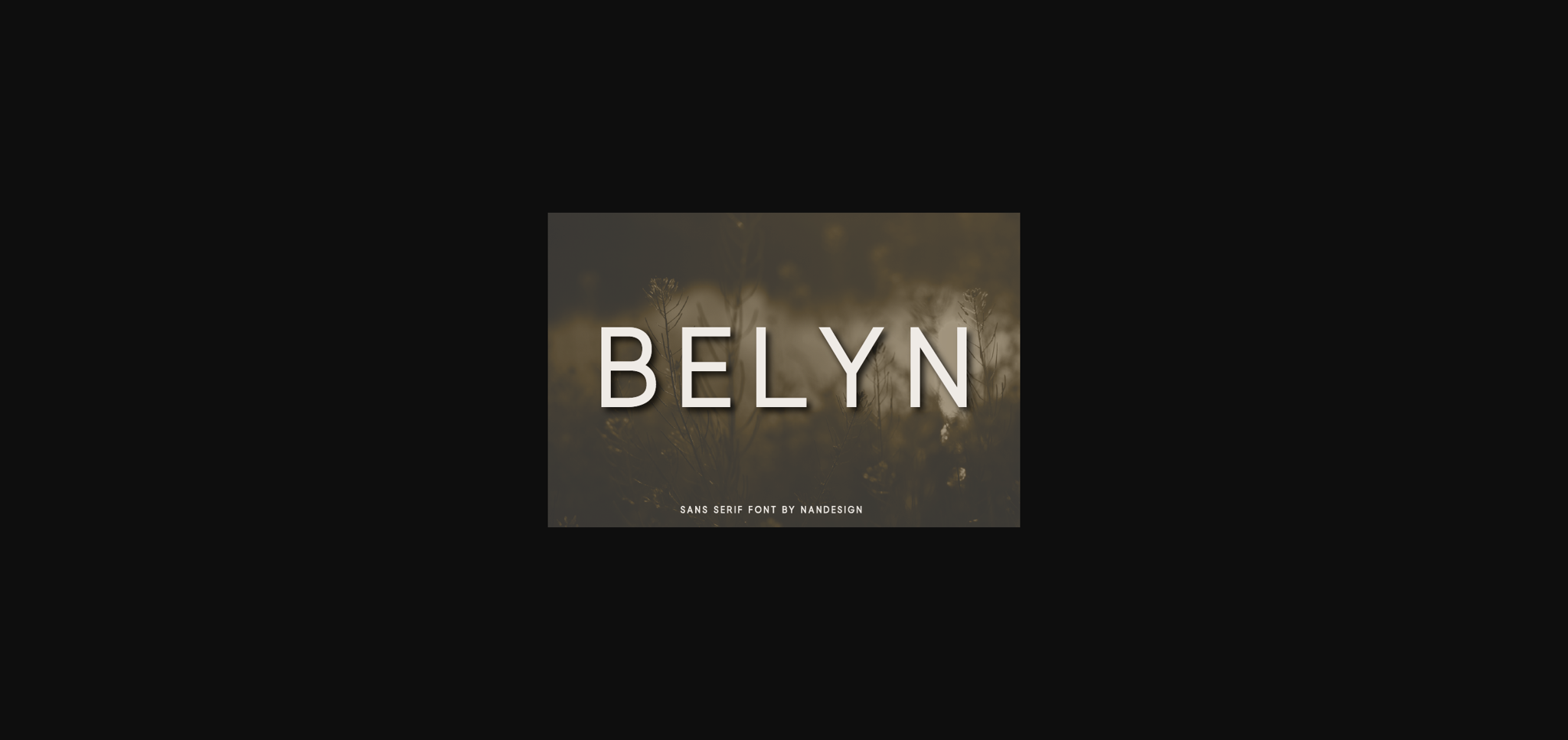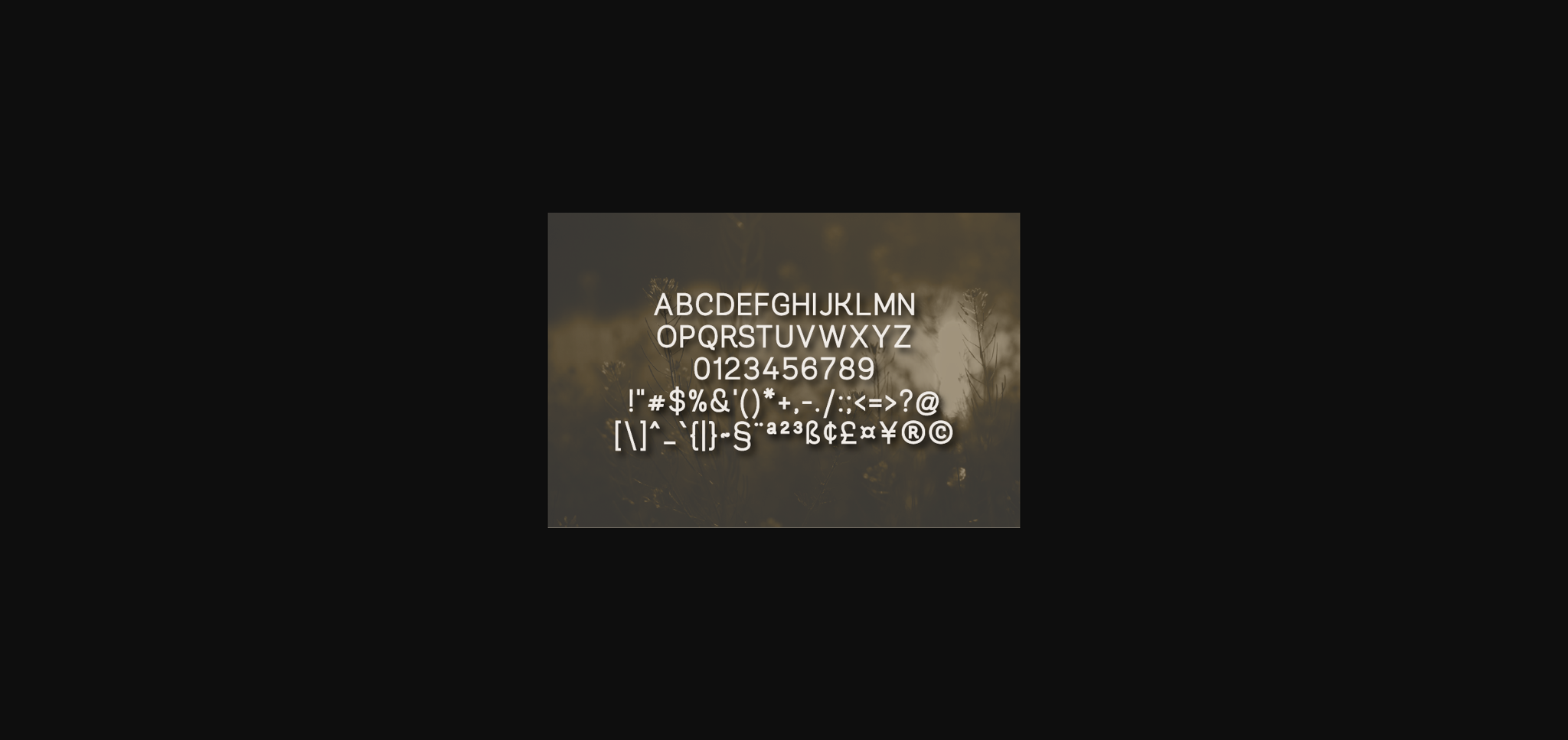
Belyn Font
About Belyn Font
Belyn is a fancy, contemporary sans serif font. In addition to its well-balanced weight distribution, it delivers a modern look which is further emphasized by its amazing characters!